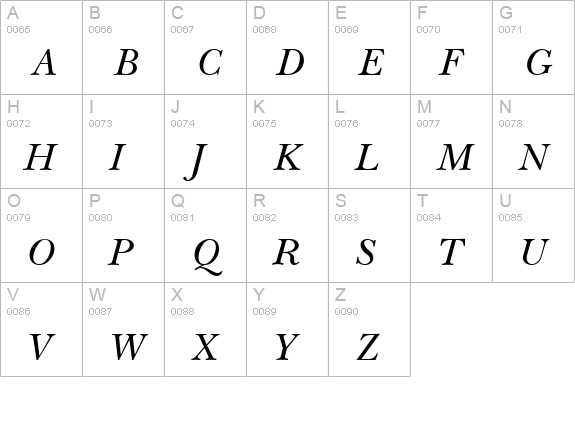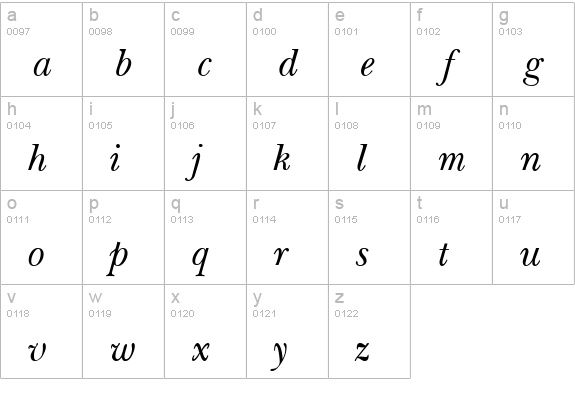
NewBaskerville Italic Font Details
NewBaskerville Italic is a distinctive, italic variant in the NewBaskerville typeface family \xE2\x80\x94 well suited to design and typography projects.
NewBaskerville Italic is a timeless and elegant font that exudes sophistication and charm. Its delicate slant and graceful curves make it perfect for adding a touch of class to any project. The flowing strokes and intricate details of NewBaskerville Italic create a sense of refinement and luxury, making it ideal for use in formal invitations, wedding stationery, and high-end branding. What makes NewBaskerville Italic even more appealing is that it is available for free download at FontsMarket.com. This means you can easily access this exquisite font and elevate your designs without any cost. Whether you're a designer looking to enhance your projects or someone seeking to add a touch of elegance to personal creations, NewBaskerville Italic is the perfect choice. Download it today and experience the beauty and sophistication it brings to your work.